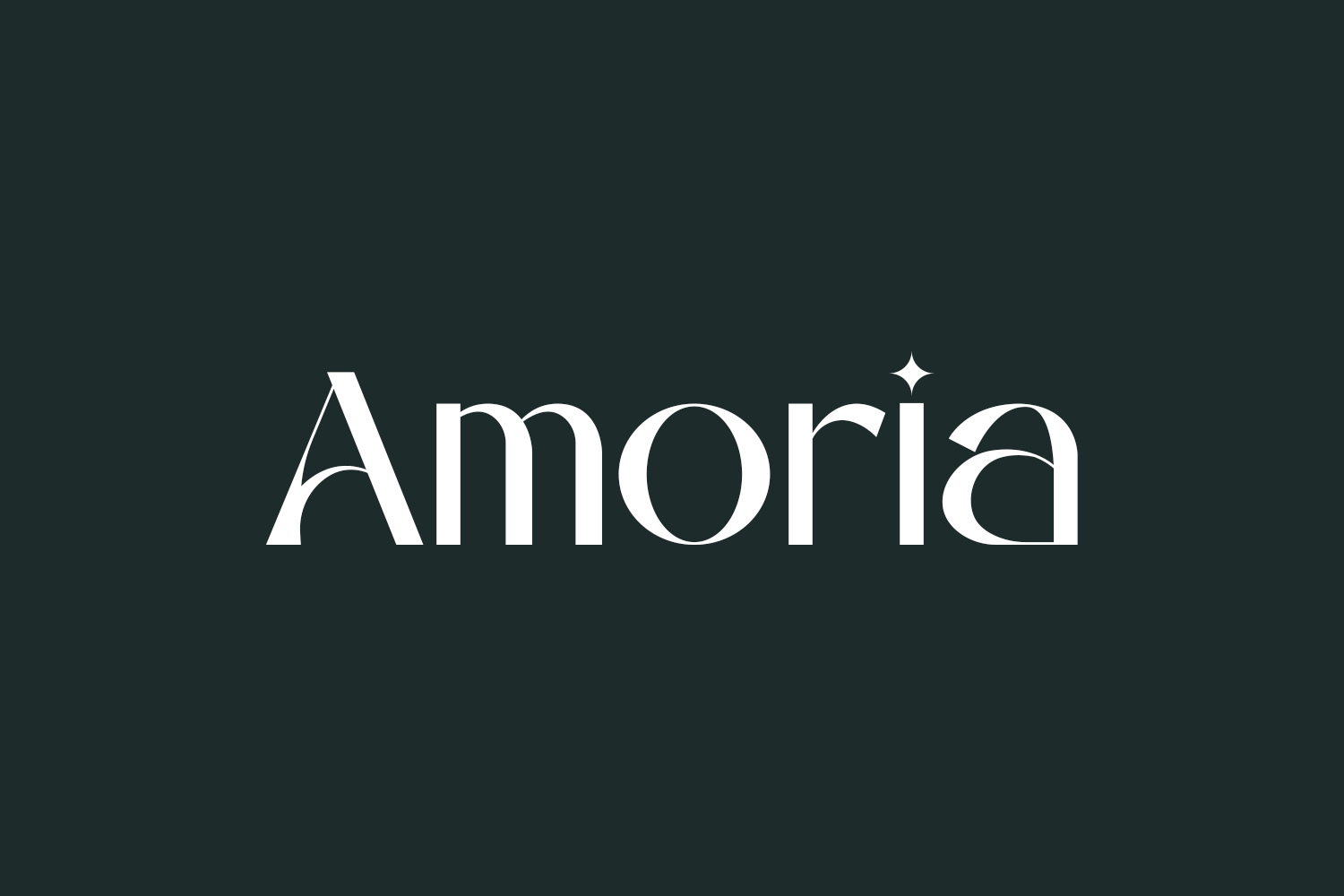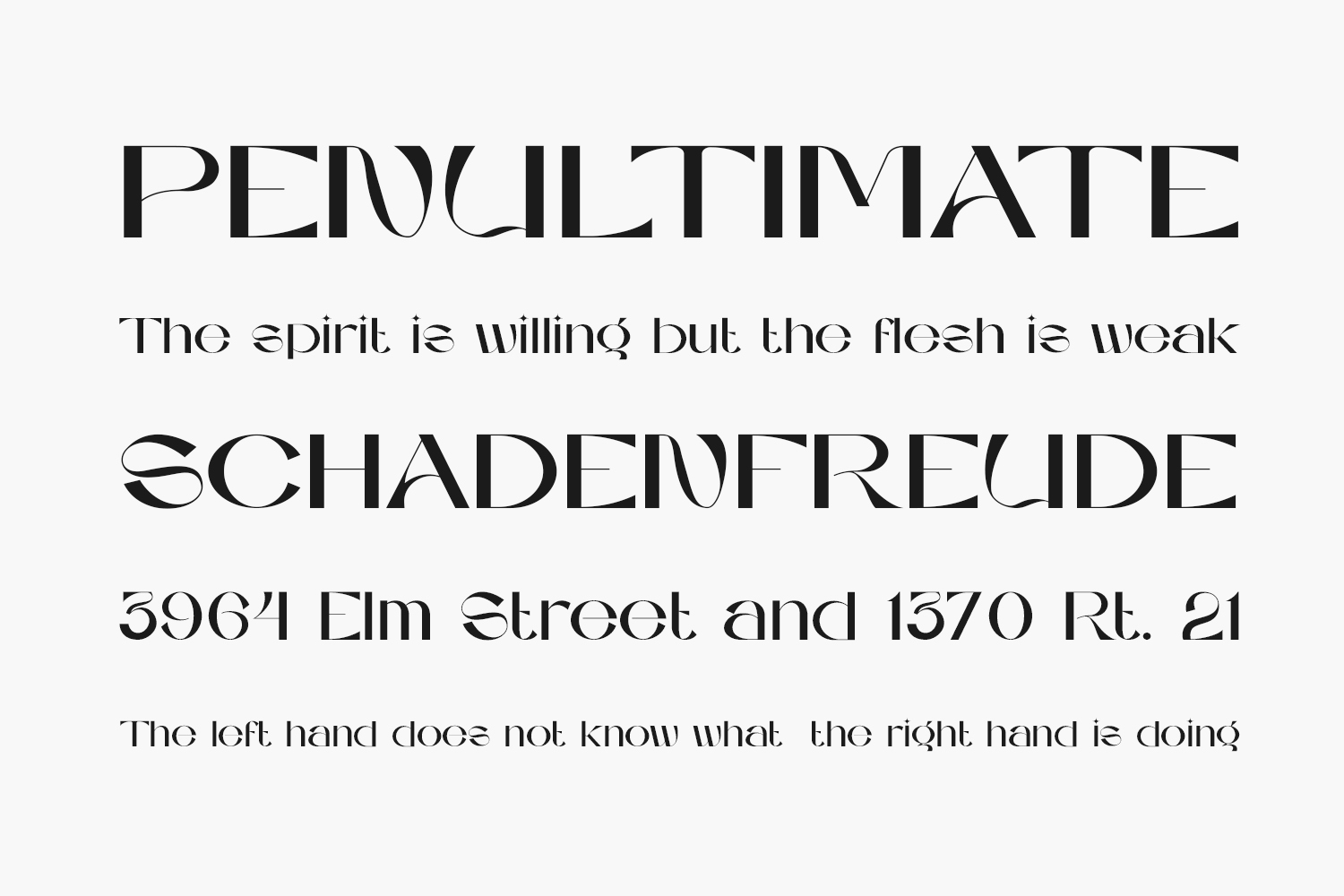
Amoria Free Font will be perfect for many projects such as logos & branding, invitations, posters, flyers, wedding designs, social media posts, advertisements, product packaging, product designs, labels, photography, watermarks, special events or movie poster titles. Amoria Free Font is free for personal use only. Please purchase the full version for commercial use.
Designed by Guna Studio